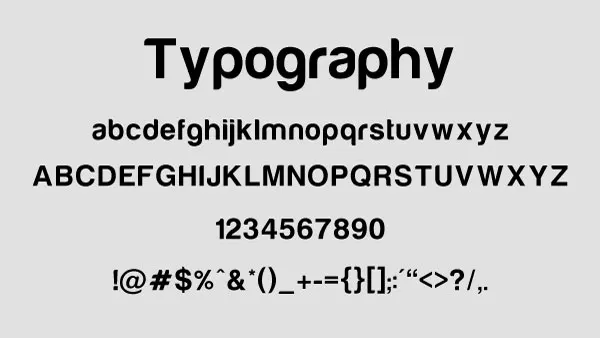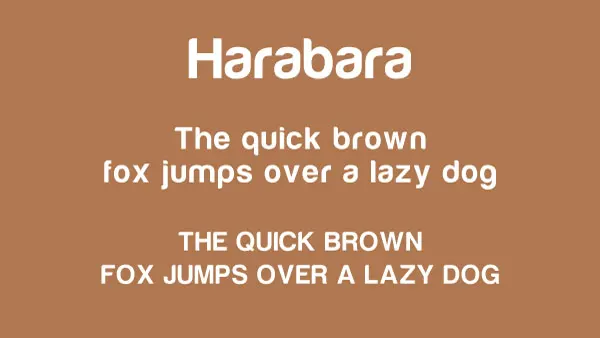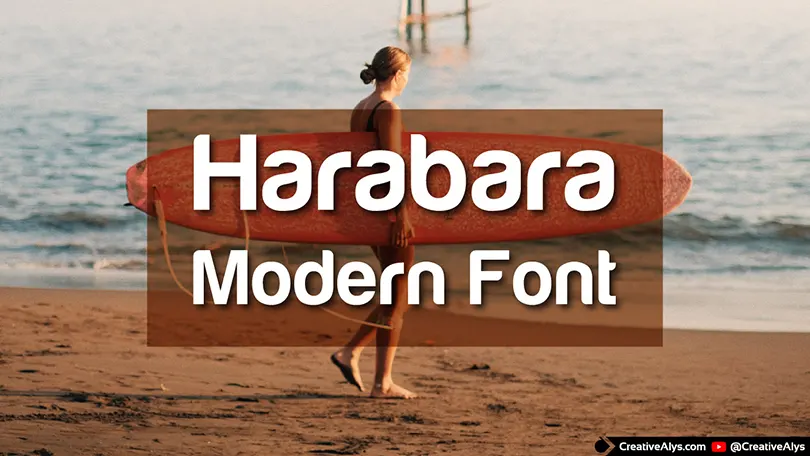
Typography is a fundamental building block of exceptional graphic design. If you are looking for a typeface that commands attention with clean, geometric curves and a striking presence, the Harabara Modern Font is an excellent addition to your digital toolkit.
Designed with balanced proportions and a bold personality, this modern sans-serif typeface features 170+ glyphs. It seamlessly bridges the gap between futuristic styling and clean, everyday readability, making it highly versatile for creative professionals.
Why Choose Harabara for Your Design Projects?
The Harabara typeface has earned its popularity among designers due to several defining features:
- Bold & Geometric Aesthetics: The font’s strong, solid characters feature slightly rounded corners, which softens its heavy weight and gives it a highly approachable, premium feel.
- High Readability: Unlike many display fonts that sacrifice clarity for style, Harabara remains exceptionally legible at both large headline sizes and smaller body copy.
- Generous Character Set: With over 170 meticulously crafted glyphs, the font supports uppercase and lowercase letters, numerals, and standard punctuation.
Best Applications for Harabara Font
Because of its assertive yet clean structure, Harabara shines in creative environments where your typography needs to make an impact:
- Logo Design & Brand Identity: Its bold curves are perfect for creating memorable, modern logotypes.
- Web UI & App Design: Excellent for striking hero sections, clean landing page headers, and button call-to-actions.
- Social Media & Marketing Graphics: Stand out on crowded feeds across platforms like Instagram, Pinterest, and LinkedIn with high-contrast text overlays.
- Print Media: Ideal for physical marketing materials such as business cards, event posters, flyers, and modern book covers.
- Designer: André Harabara